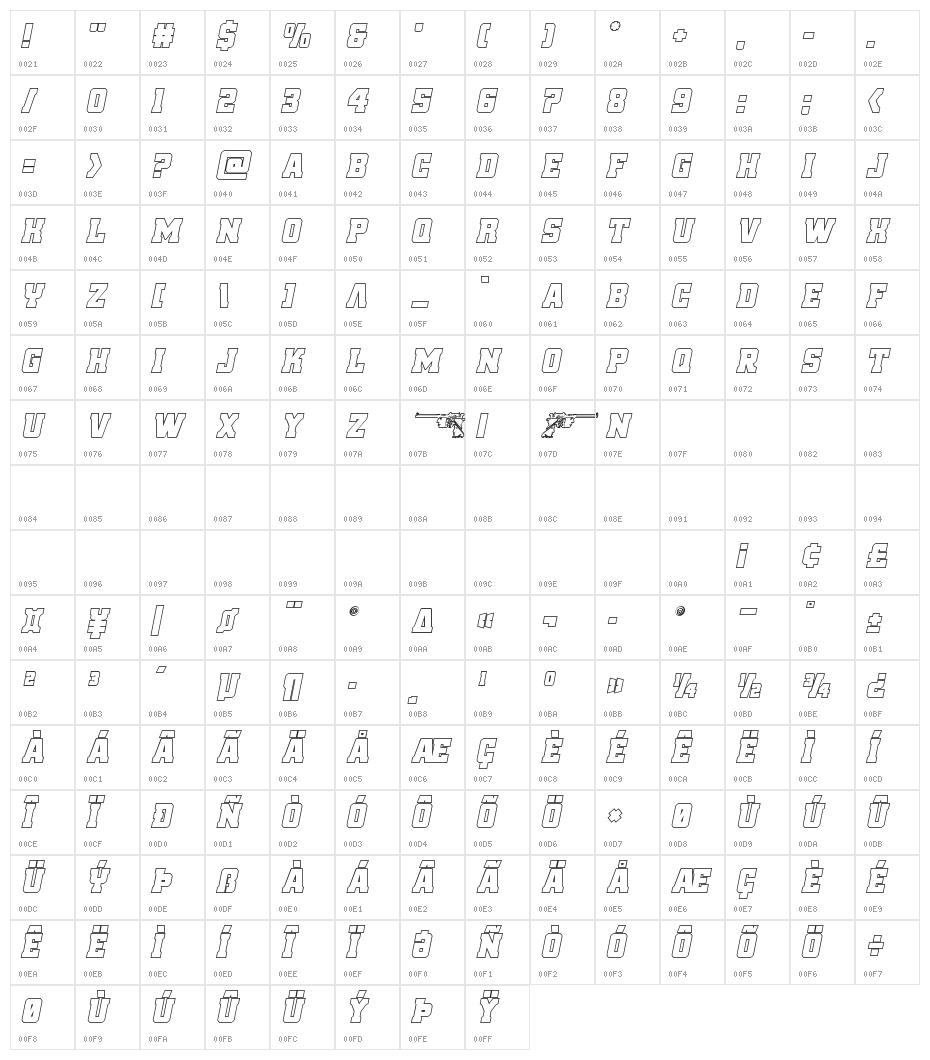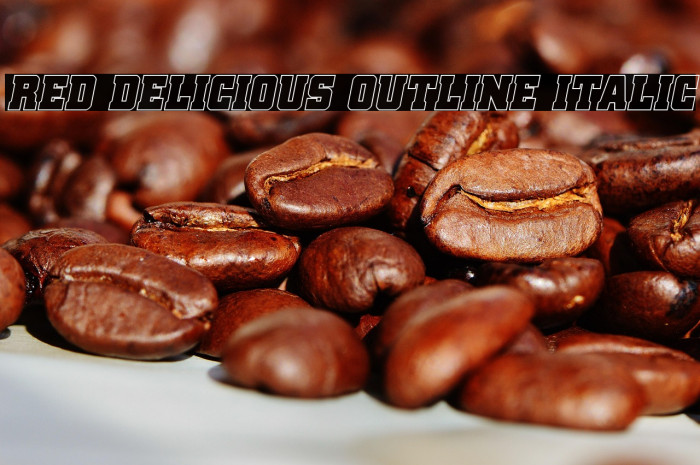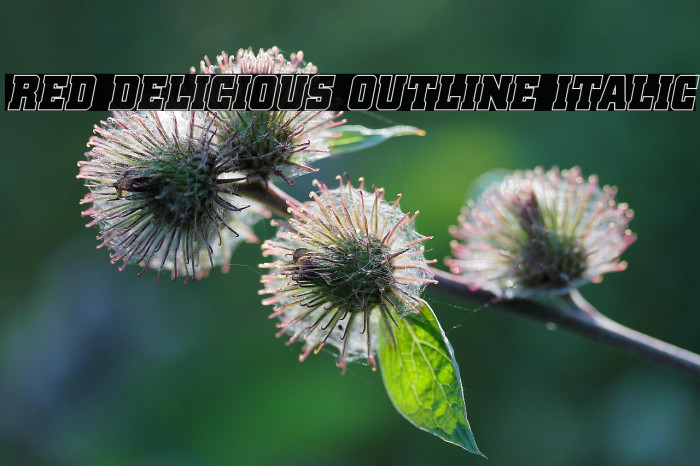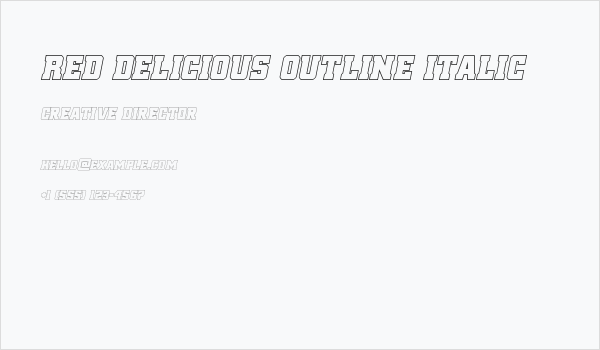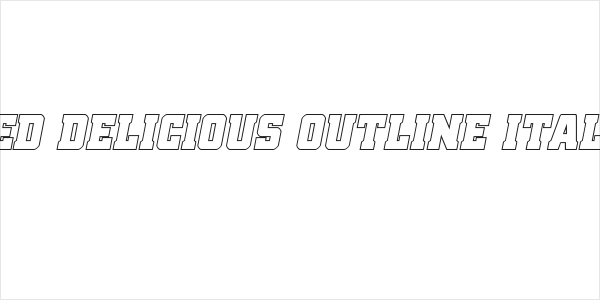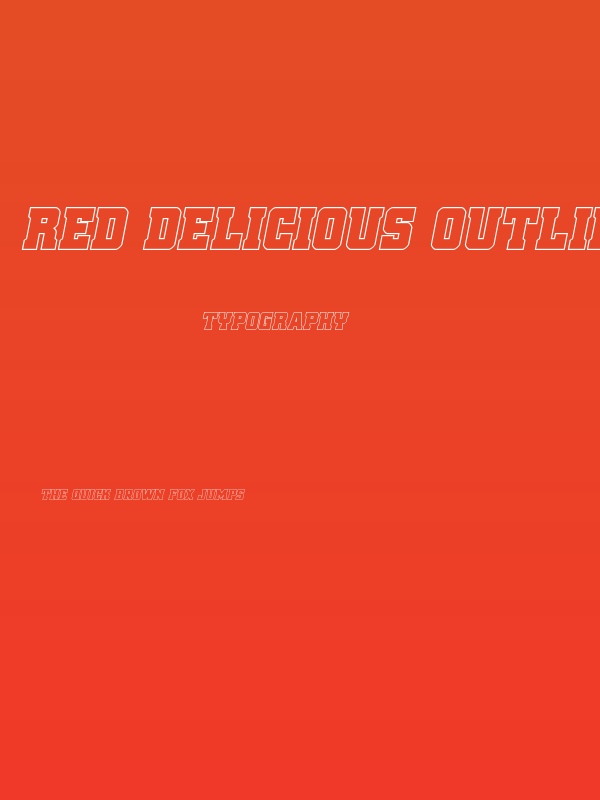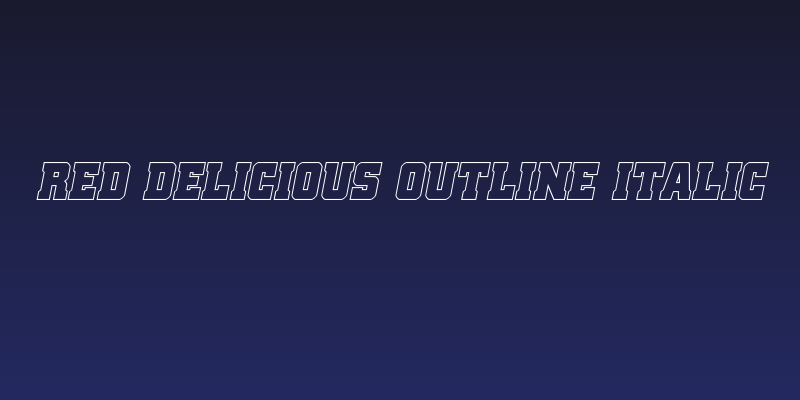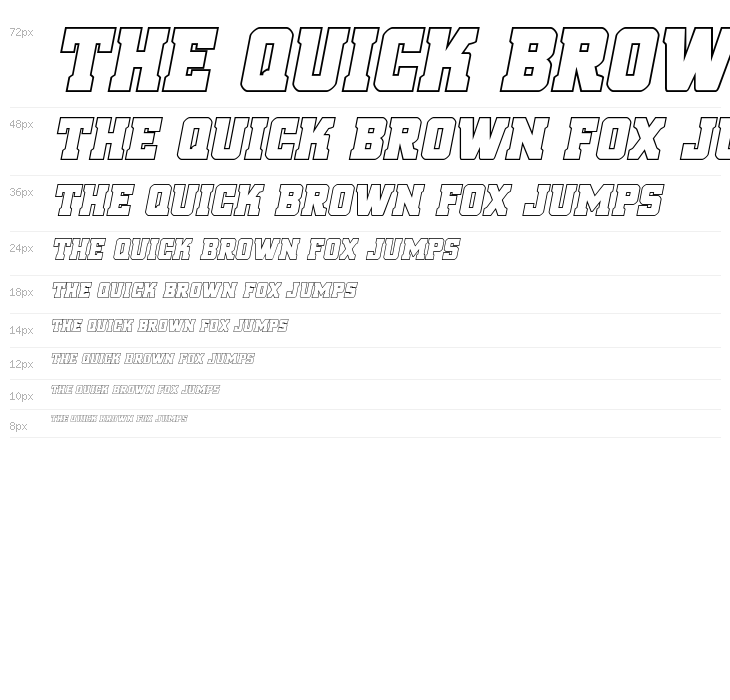
Red Delicious Outline Italic Font
Red Delicious Outline Italic Description
This font features a bold, outlined style with a slight italic slant, giving it a dynamic and modern appearance. The uppercase and lowercase letters are consistent in their geometric design, with sharp angles and clean lines. The numbers and special characters maintain the same outlined and italicized style, ensuring uniformity across all glyphs. The font's boldness and outline make it highly visible and suitable for attention-grabbing designs. Its italic nature adds a sense of motion and energy, making it ideal for projects that require a contemporary and impactful look.
| Proposed Projects | Ideal for headlines, posters, logos, and branding materials that require a bold and modern look. |